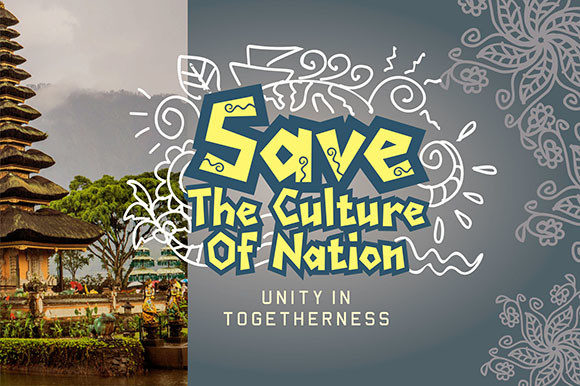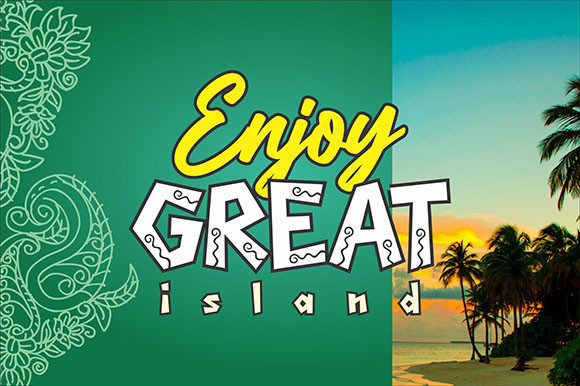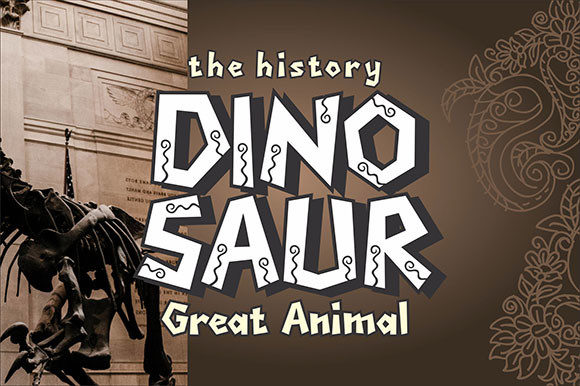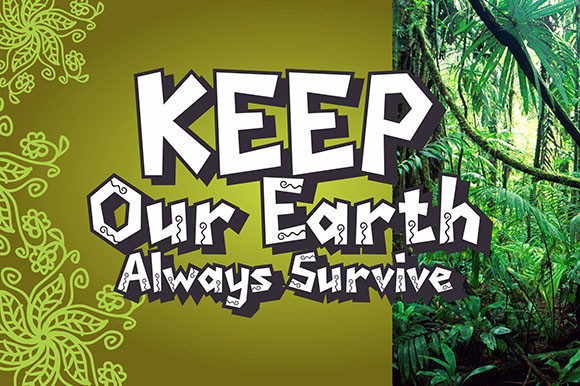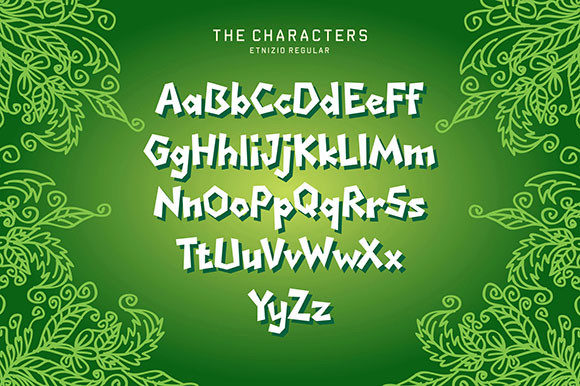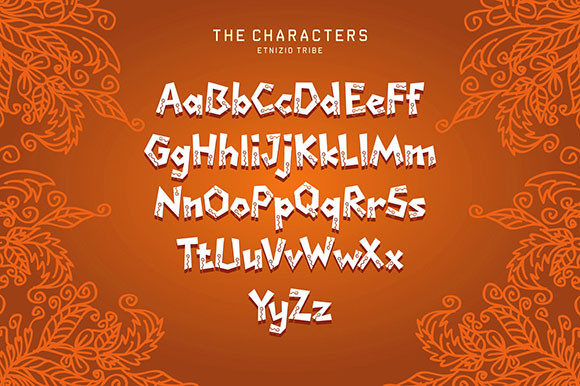
Etnizio Font: The Ultimate Decorative Font for Fun and Creative Projects
Are you a designer, crafter, or DIY enthusiast looking for a unique and authentic font to add a touch of personality to your projects? Look no further than Etnizio Font! This incredibly cool and versatile decorative font is perfect for a wide range of design ideas, from school projects to kids’ parties, and everything in between.
What is Etnizio Font?
Etnizio Font is a decorative font that boasts a distinctive and eye-catching style. Its authentic and rustic feel makes it an excellent choice for projects that require a touch of whimsy and playfulness. The font’s unique design features intricate details and ornate flourishes, giving it a one-of-a-kind look that’s sure to grab attention.
Why Choose Etnizio Font?
So, what sets Etnizio Font apart from other fonts? Here are just a few reasons why designers and crafters love this amazing font:
- Versatility: Etnizio Font works well on a wide range of design ideas, from educational materials to party decorations, and even craft projects.
- Authenticity: The font’s rustic and decorative style gives it an authentic feel that’s perfect for projects that require a touch of personality.
- Ease of use: Etnizio Font is easy to read and use, making it a great choice for designers and crafters of all skill levels.
Perfect for School Projects
Etnizio Font is an excellent choice for school projects, such as:
- Poster design: Create eye-catching posters for school events, announcements, or educational materials.
- Handouts and worksheets: Add a touch of personality to handouts, worksheets, and other educational materials.
- Project presentations: Use Etnizio Font to create engaging and visually appealing project presentations.
Great for Kids’ Parties
Etnizio Font is also perfect for kids’ parties, including:
- Party invitations: Create custom party invitations that set the tone for a fun and festive celebration.
- Decorations: Use Etnizio Font to create custom banners, signs, and other decorations that add a touch of personality to the party.
- Activity materials: Create engaging activity materials, such as coloring pages, games, and worksheets, that feature the Etnizio Font.
Tips for Using Etnizio Font
Here are a few tips for getting the most out of Etnizio Font:
- Experiment with colors: Try pairing Etnizio Font with different colors and textures to create a unique and eye-catching design.
- Mix and match: Combine Etnizio Font with other fonts and design elements to create a visually appealing design.
- Keep it simple: Don’t be afraid to keep things simple and use Etnizio Font on its own to create a bold and striking design.
Etnizio Font is an incredibly cool and authentic decorative font that’s perfect for a wide range of design ideas, from school projects to kids’ parties. Its unique and eye-catching style makes it an excellent choice for designers and crafters who want to add a touch of personality to their projects. With its versatility, authenticity, and ease of use, Etnizio Font is a must-have for anyone looking to create fun and engaging designs.